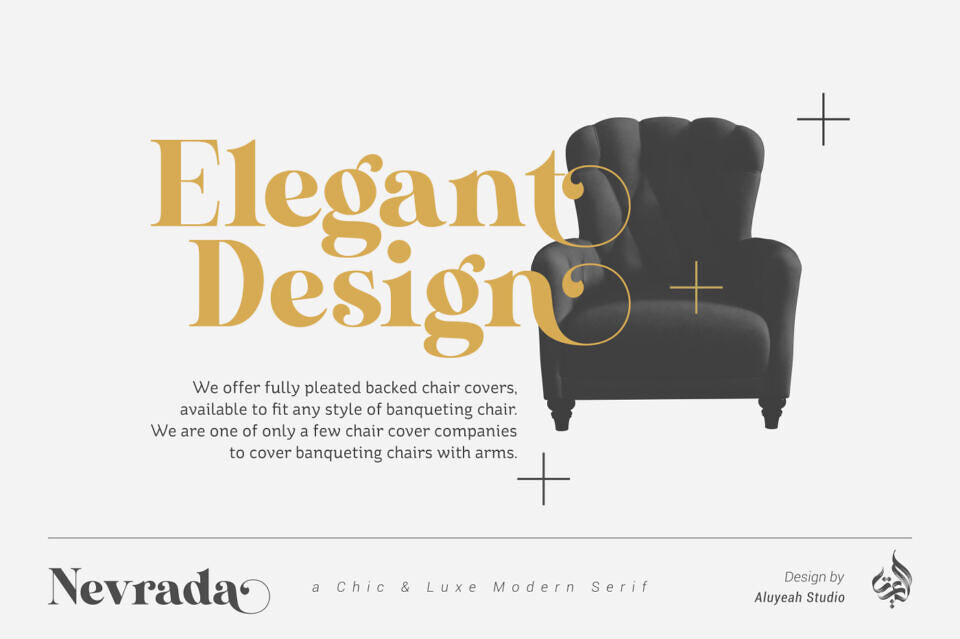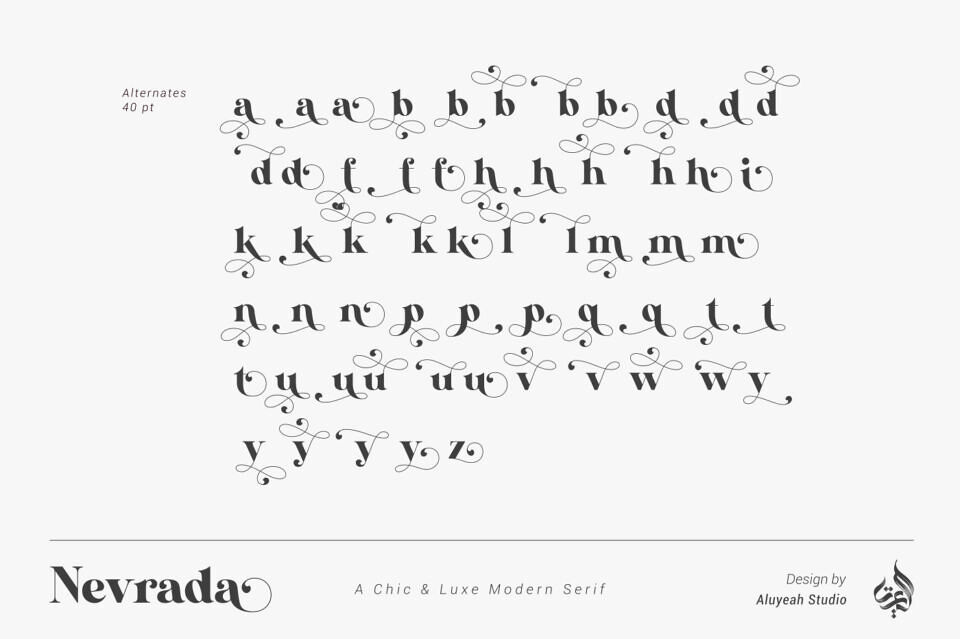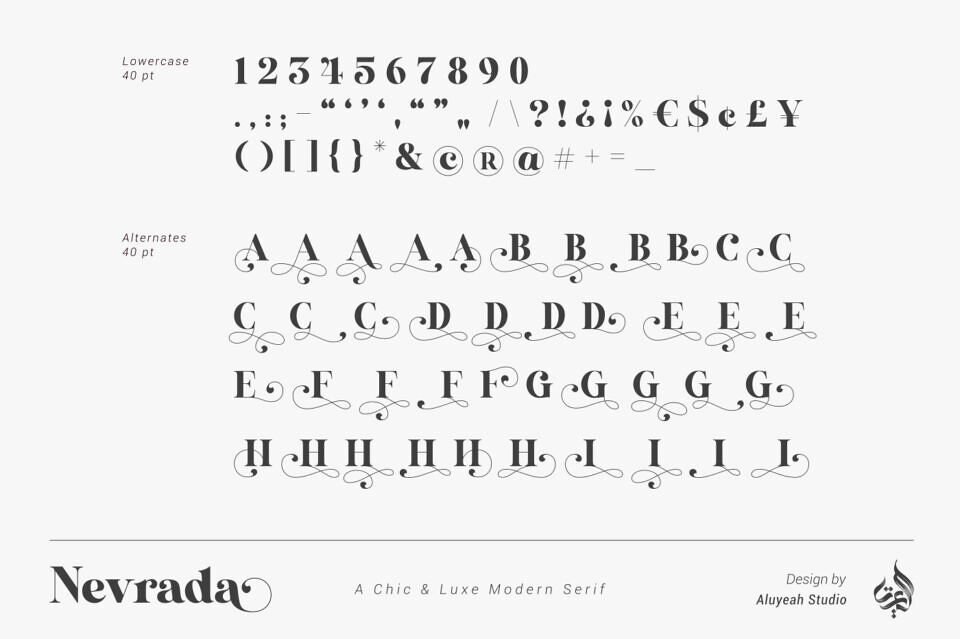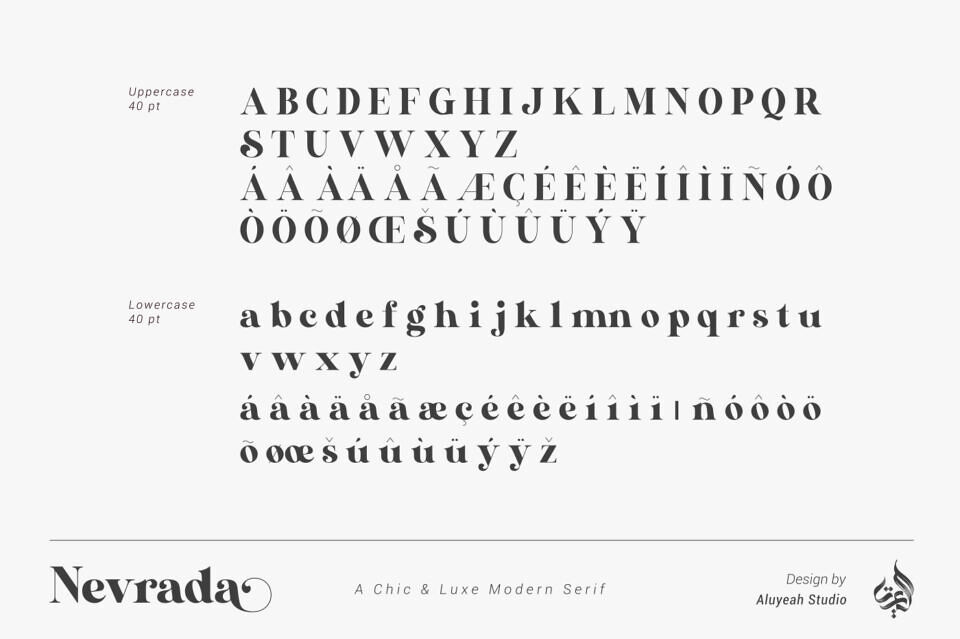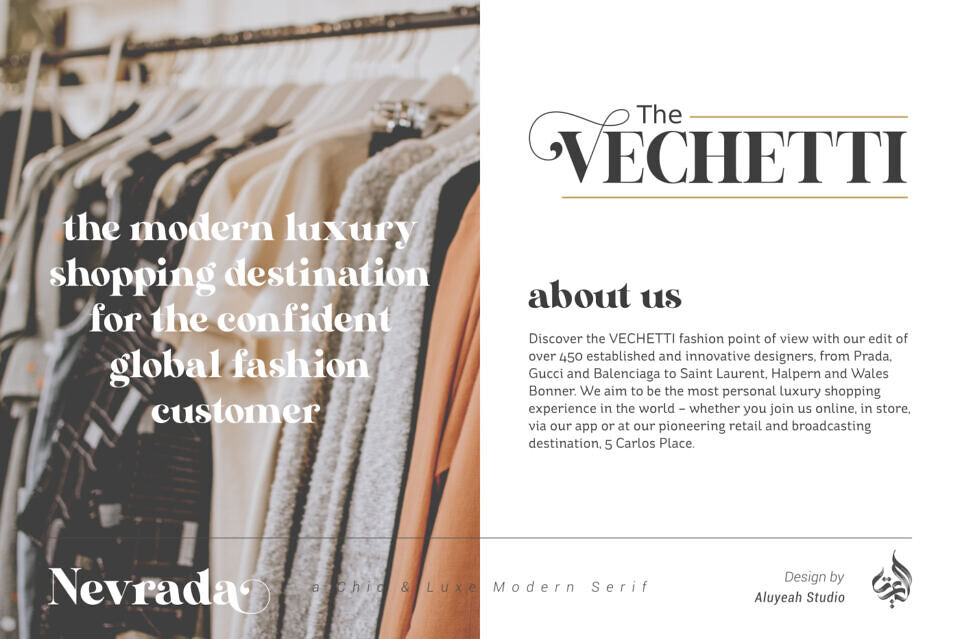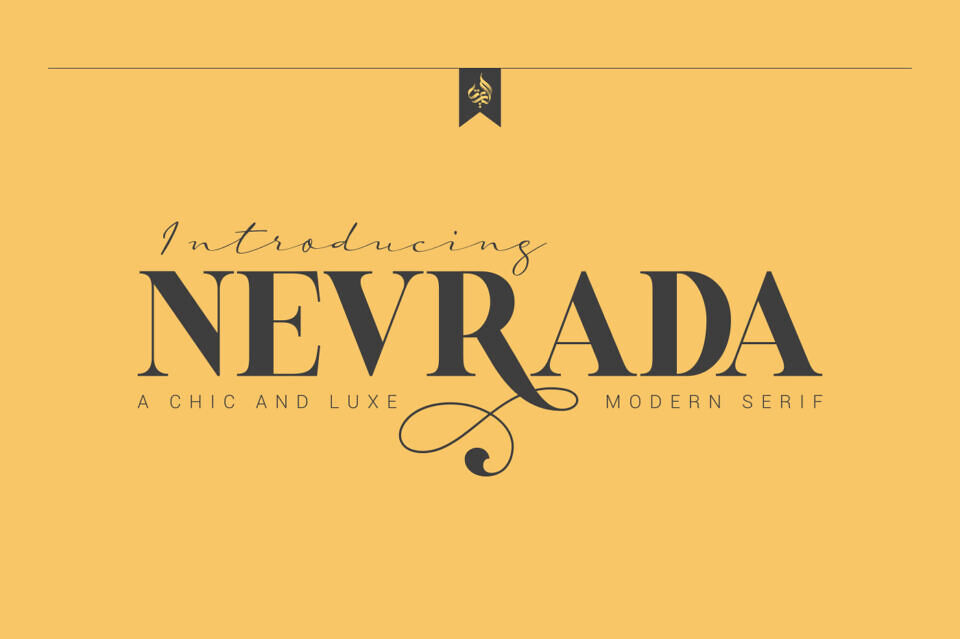
Meet Nevrada Font, a sleek display typeface with sharp serifs. Ideal for making a statement, this chic and luxurious font adds a bold touch to designs. With 150+ modern alternates, it’s perfect for logos, headlines, fashion projects, and more.
Suitable for high-end brands, fashion, cosmetics, and luxury industries, Nevrada Font elevates designs with its elegant and sophisticated feel. Use it for branding, packaging, magazines, and social media to create a beautiful and classy look.